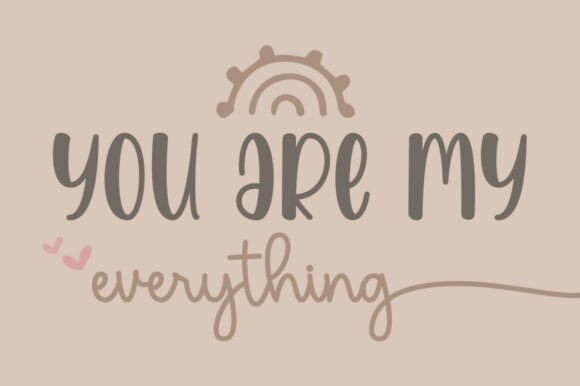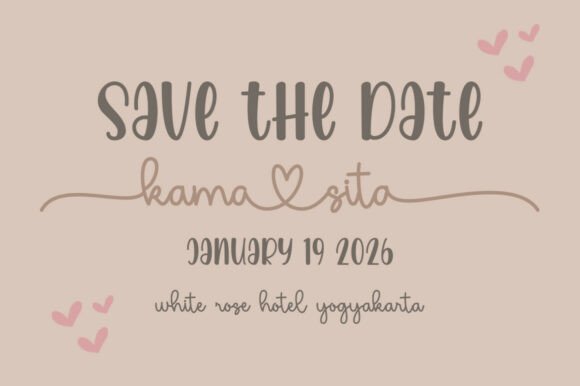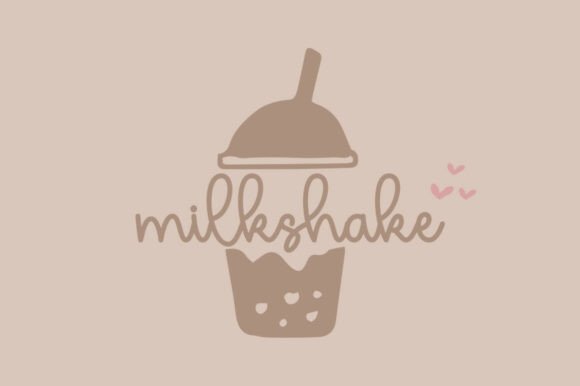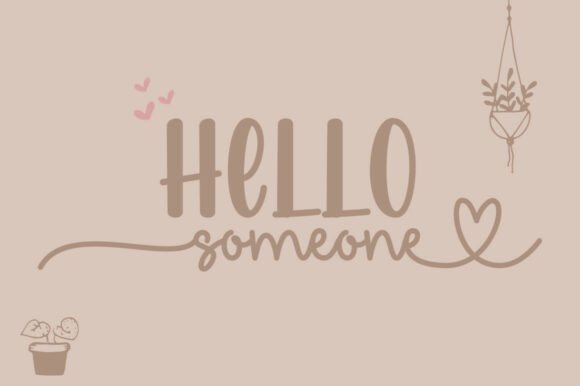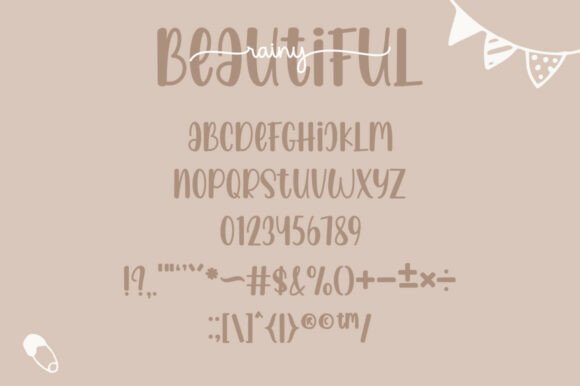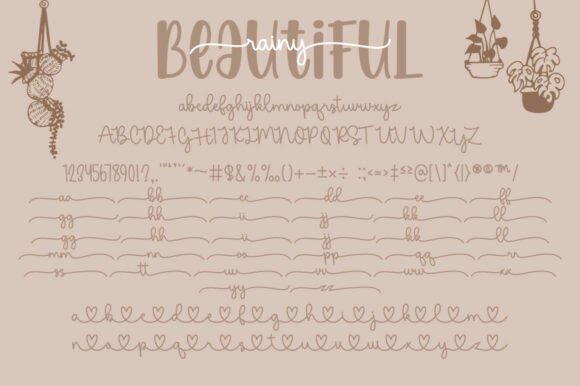
Introducing the Beautiful Rainy Font Duo: Elevate Your Designs with a Perfectly Balanced Pairing
Are you tired of using the same old fonts in your creative projects? Look no further! The Beautiful Rainy font duo is here to bring a fresh and cohesive aesthetic to your designs. This stunning pairing of fonts is carefully crafted to provide a perfect balance of bold and delicate, making it ideal for a wide range of applications, from social media branding to children’s apparel and packaging.
A Perfect Pairing: Thick and Delicate
The Beautiful Rainy font duo consists of two distinct fonts: a thick, rounded sans-serif and a delicate, monoline script. The sans-serif font is designed to make a bold impact, with its rounded edges giving it a friendly and approachable feel. On the other hand, the monoline script font boasts elegant, elongated swashes that add a touch of sophistication to any design.
What makes this font duo truly special is the way the two fonts complement each other. The heavy sans-serif font is perfect for primary titles, while the flowing script font is ideal for secondary details or signatures. This creates an instant visual harmony that will elevate your designs to the next level.
The Beautiful Rainy font duo is incredibly versatile, making it suitable for a wide range of design projects. Here are just a few ideas to get you started:
- Social Media Branding: Use the Beautiful Rainy font duo to create eye-catching social media graphics, such as Facebook and Instagram posts, that will help you stand out from the crowd.
- Children’s Apparel: Design adorable t-shirts, hoodies, and other clothing items for kids with the Beautiful Rainy font duo.
- Sweet Packaging: Add a touch of elegance to your product packaging with the Beautiful Rainy font duo, perfect for food, cosmetics, and other consumer goods.
- Get Well Soon Cards: Create heartwarming get well soon cards with the Beautiful Rainy font duo, featuring the bold sans-serif font for the main message and the flowing script font for the sender’s signature.
- Boutique Logo Identities: Use the Beautiful Rainy font duo to create unique and memorable logo identities for your boutique or small business.
A Warm and Huggable Personality
One of the standout features of the Beautiful Rainy font duo is its warm and “huggable” personality. This makes it perfect for designs that require a personal touch, such as greeting cards, invitations, and other personal stationery. The font duo’s friendly and approachable feel will make your designs feel like a personal gift, rather than just a generic product.
The Beautiful Rainy font duo is PUA (Private Use Area) encoded, which means you can access all glyphs and swashes with ease. This makes it easy to get creative with your designs, without having to worry about complicated font management.
Why Choose the Beautiful Rainy Font Duo?
So why choose the Beautiful Rainy font duo for your next design project? Here are just a few reasons:
- Unique and Eye-Catching: The Beautiful Rainy font duo is a unique and eye-catching pairing that will help your designs stand out from the crowd.
- Versatile: The font duo is incredibly versatile, making it suitable for a wide range of design projects.
- Easy to Use: The Beautiful Rainy font duo is PUA encoded, making it easy to access all glyphs and swashes.
- High-Quality: The font duo is designed to provide a high-quality, cohesive aesthetic that will elevate your designs to the next level.
In conclusion, the Beautiful Rainy font duo is a must-have for any designer or crafter looking to add a touch of elegance and sophistication to their designs. With its perfectly balanced pairing of bold and delicate fonts, endless design possibilities, and warm and huggable personality, this font duo is sure to become a favorite in your design arsenal.